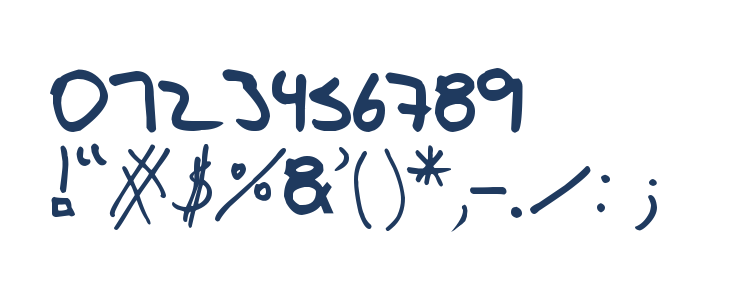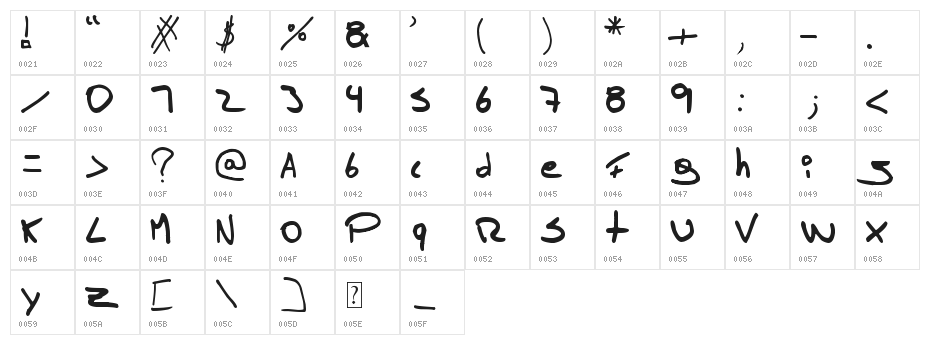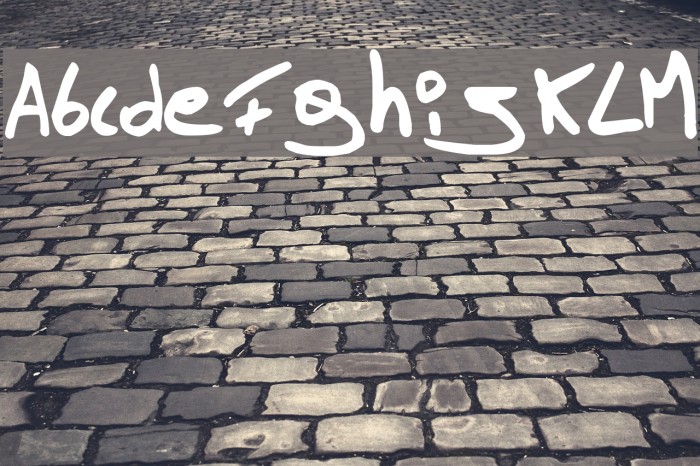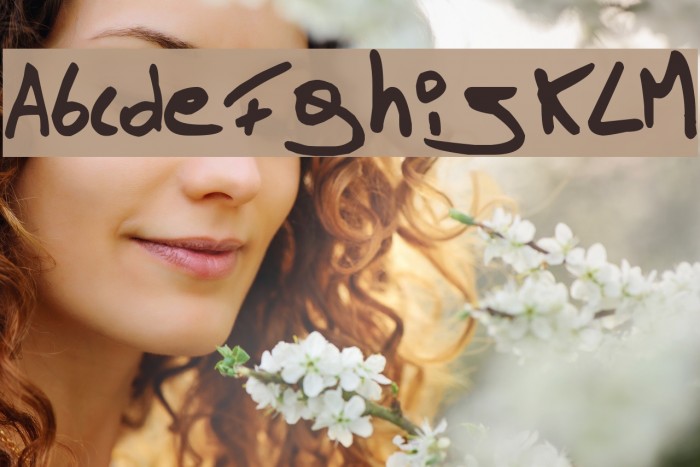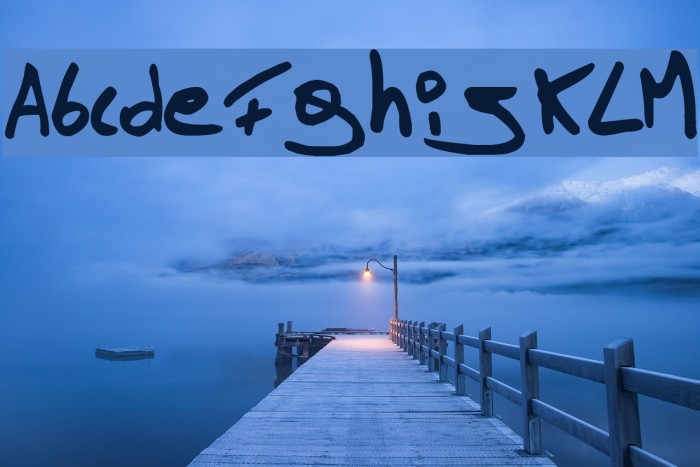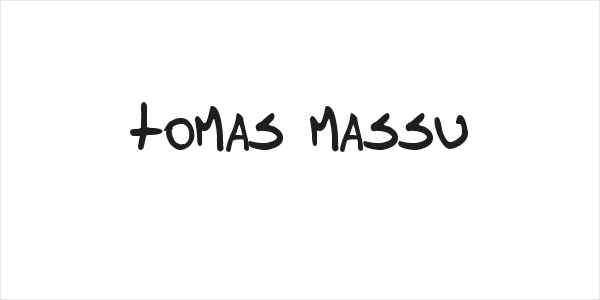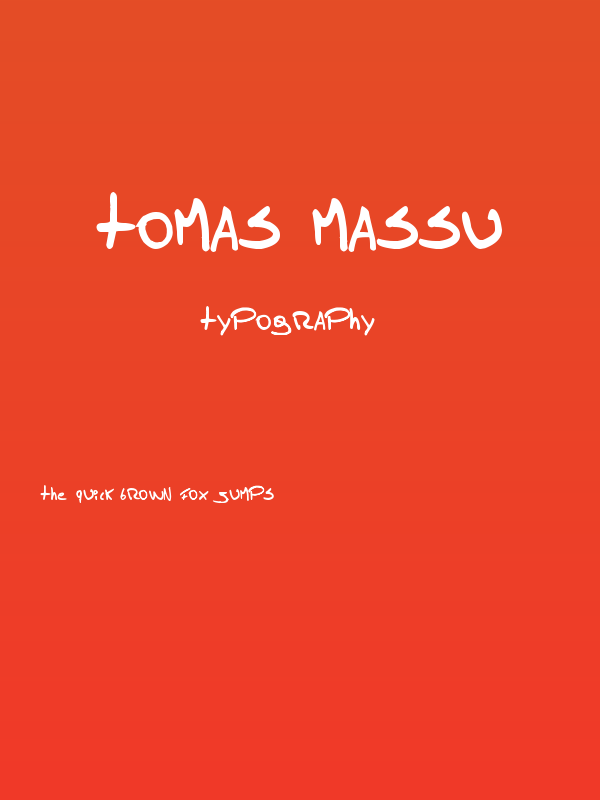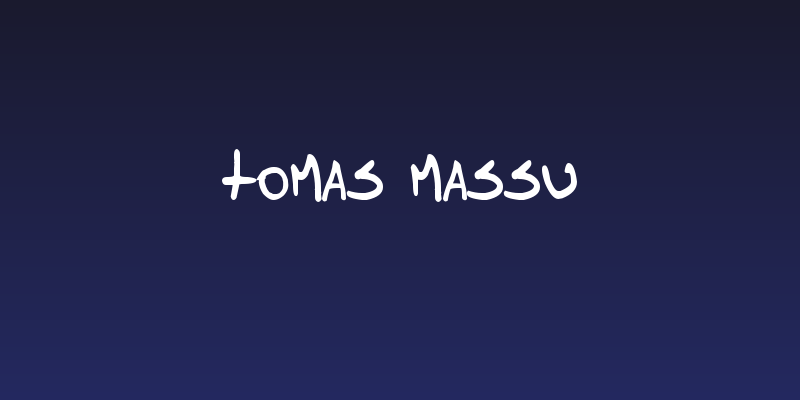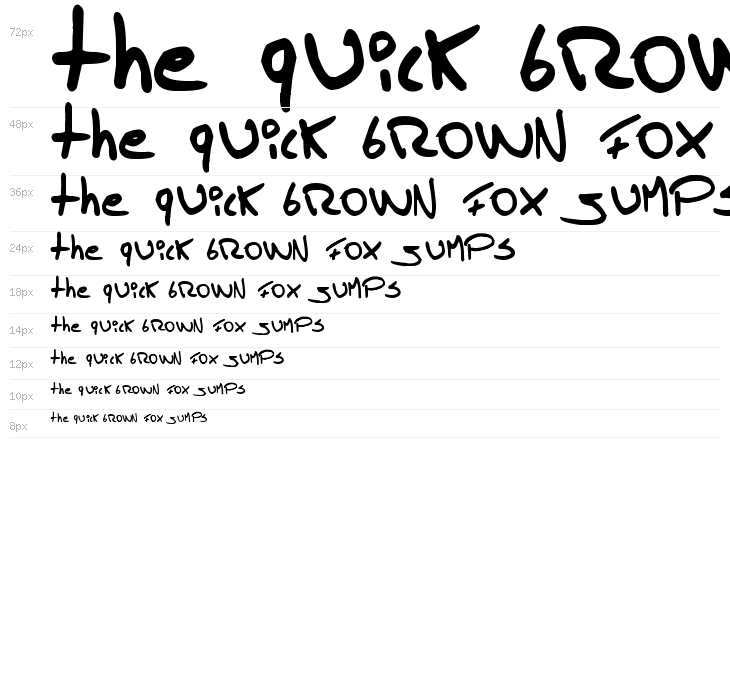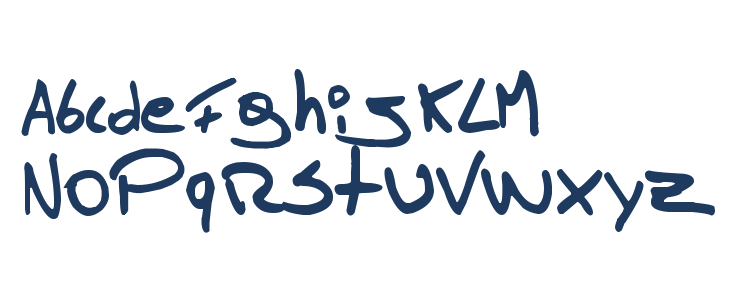
Tomas Massu Font
Tomas Massu Description
This font features a bold, handwritten style with a playful and informal appearance. The characters are slightly irregular, giving it a personal and unique touch. The strokes are thick and consistent, providing a strong visual impact. The uppercase and lowercase letters maintain a cohesive style, while the numbers and special characters complement the overall design. The font's casual and dynamic nature makes it suitable for creative projects that require a personal or artistic flair.